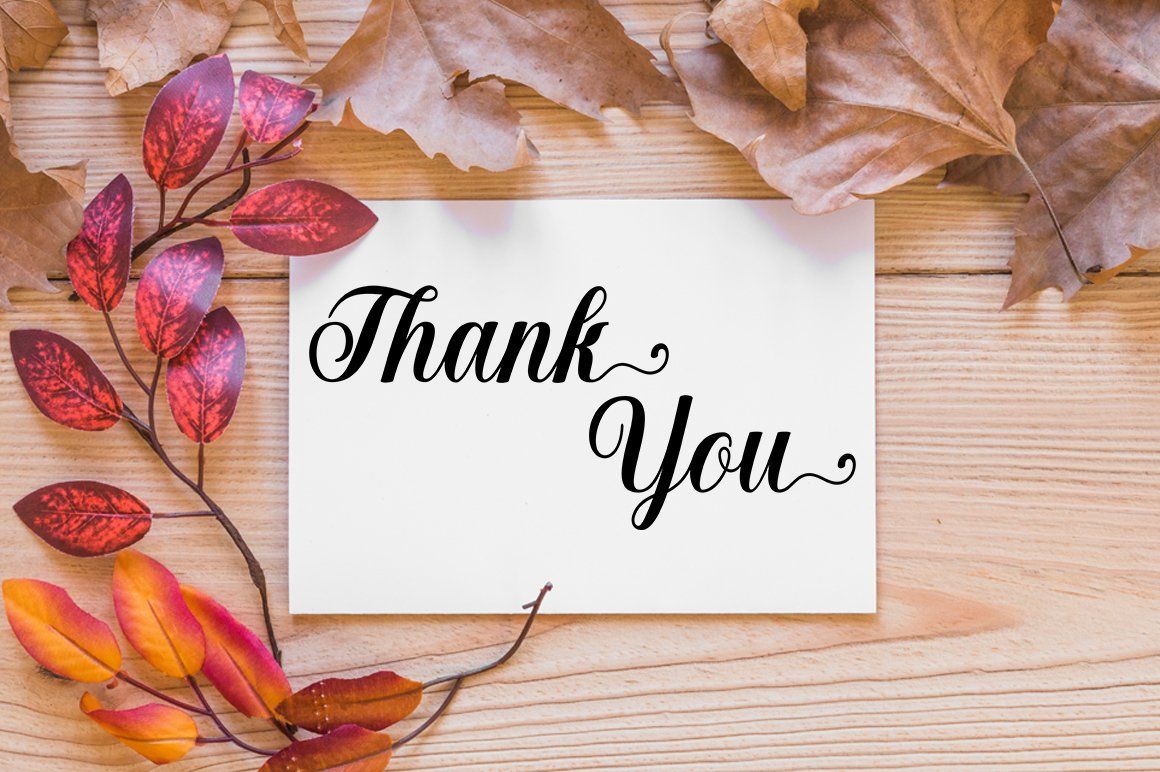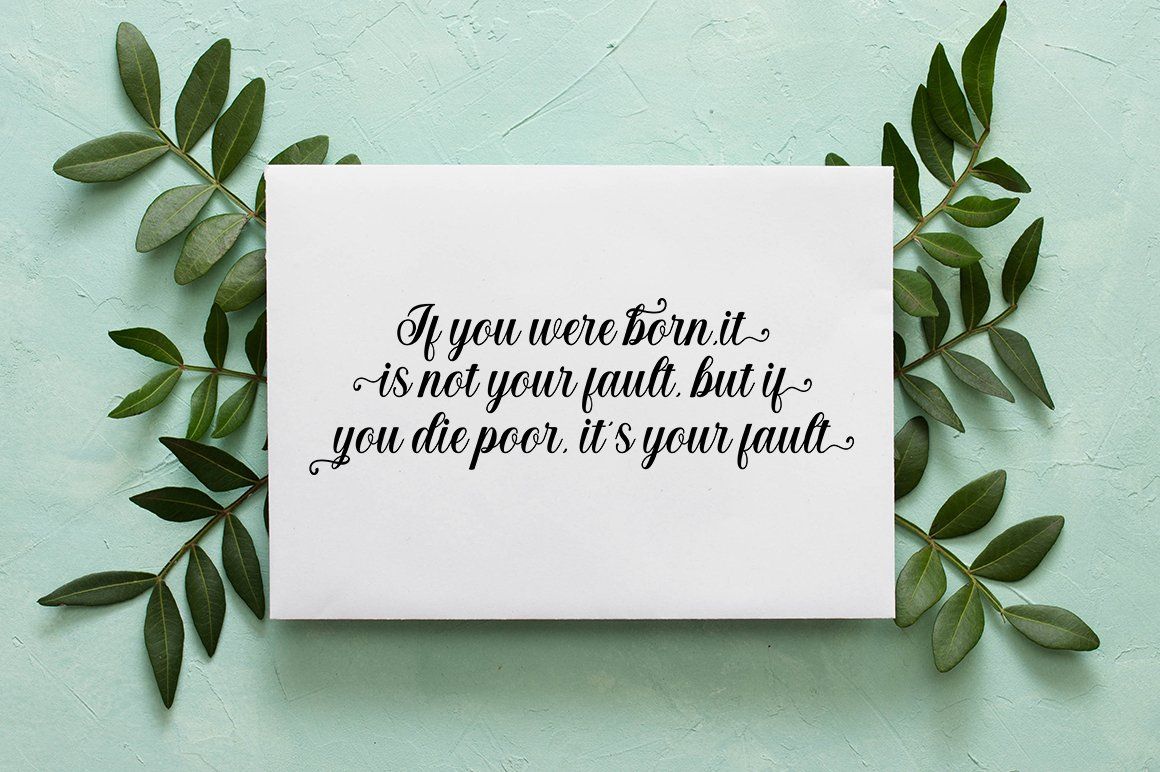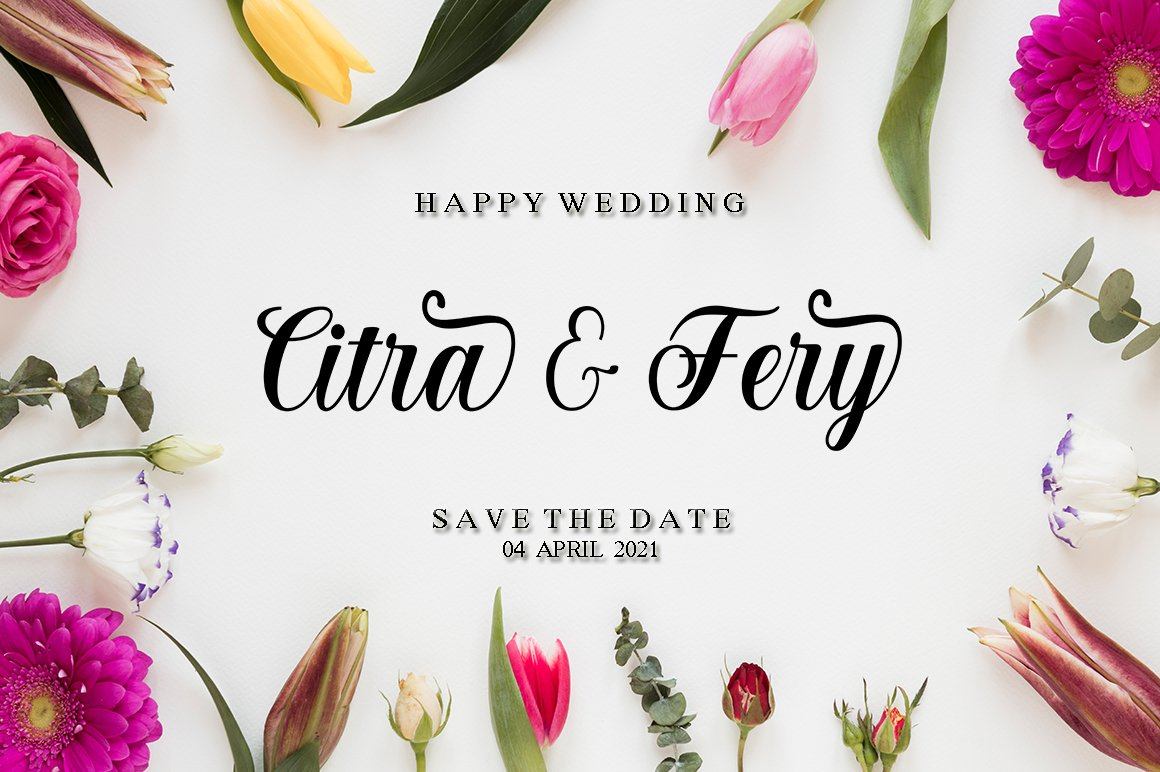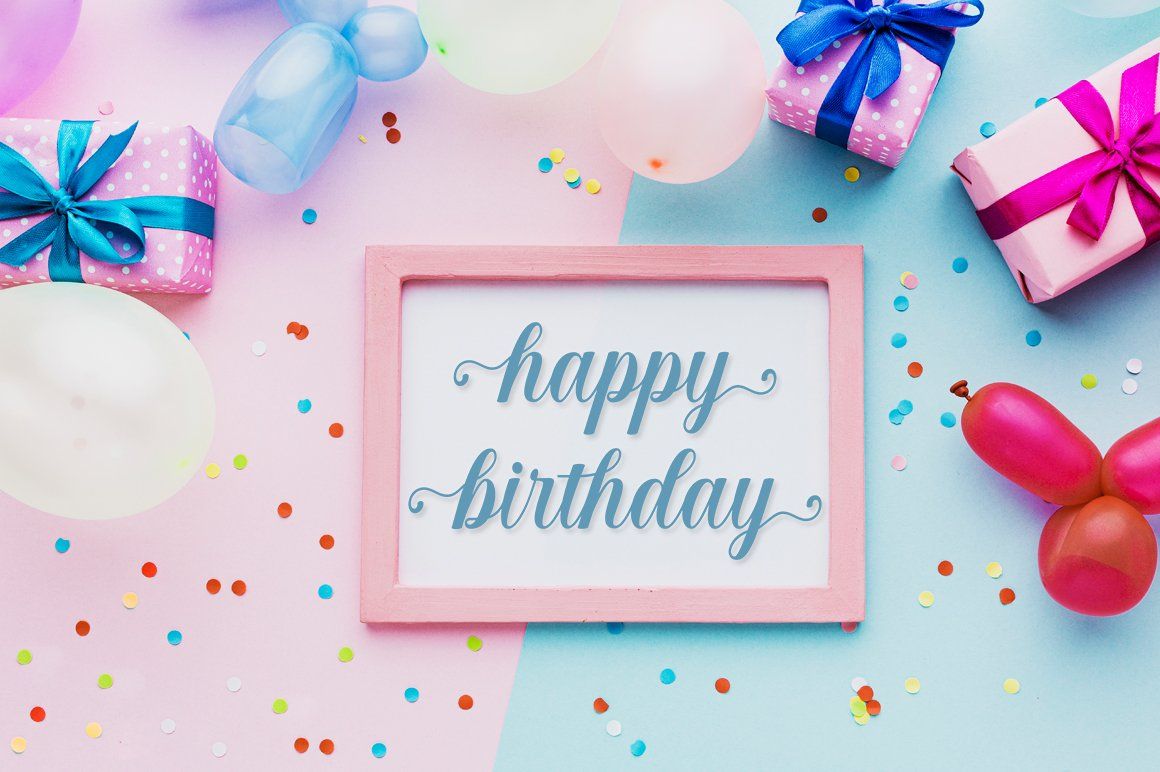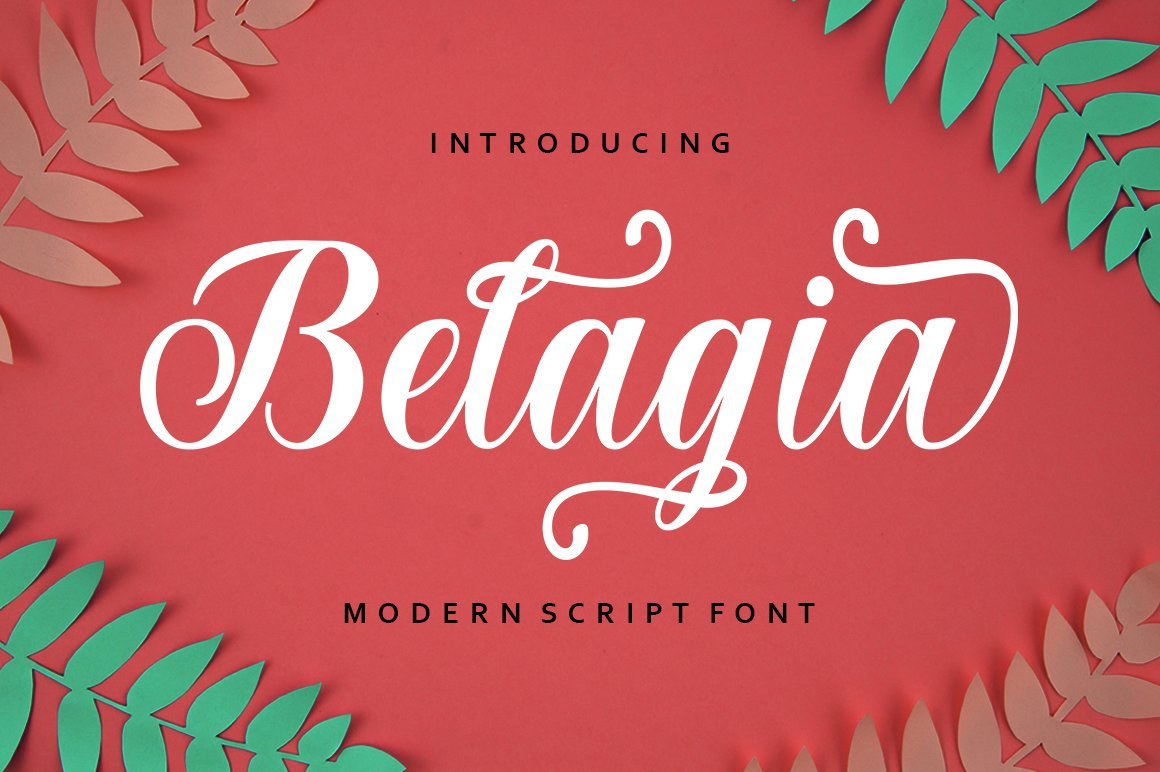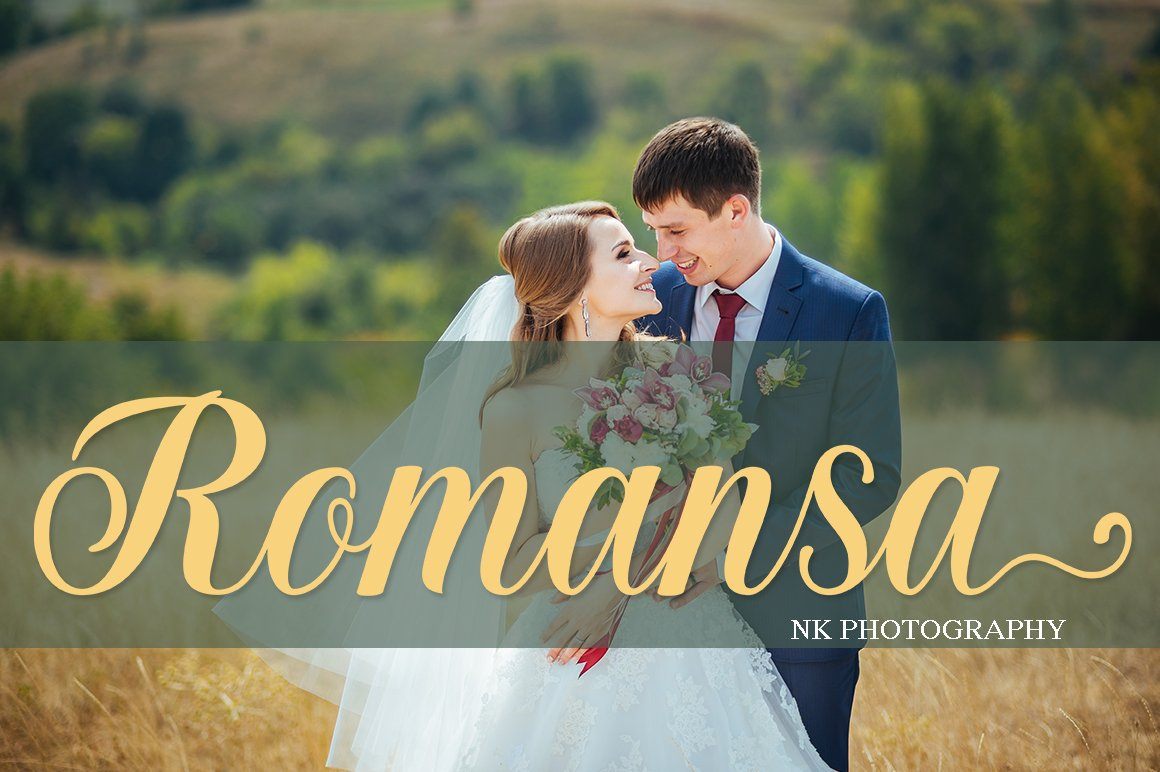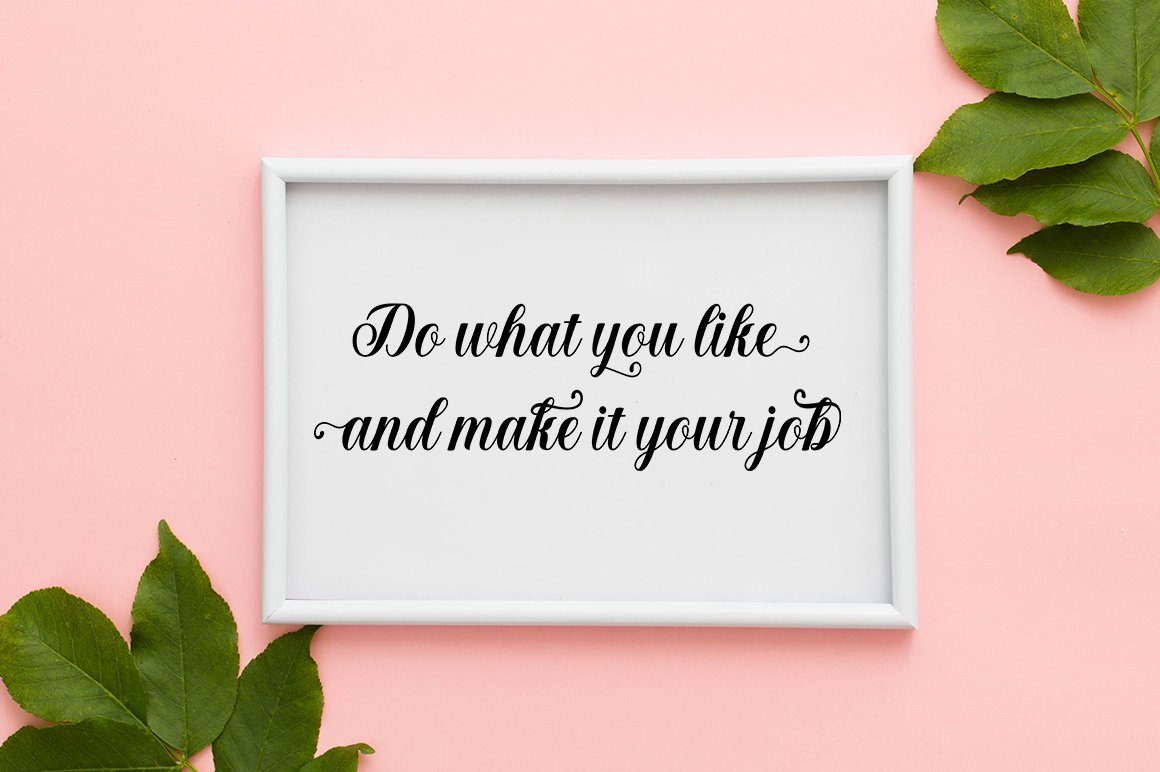
Belagia
About Belagia
Belagia Script is a beautiful script font with many alternative styles, this font looks natural, elegant and perfect for extraordinary projects. Belagia Script is suitable for various products such as invitations, product packaging, offers, product designs, crafters, labels, photography, watermarks, logos & branding. Everything can be accessed using software that supports Opentype, such as Adobe Indesign, Adobe CS Illustrator, Adobe Photoshop CC, and Corel Draw. You will get: Belagia OTF Script Belagia TTF Script Thank you 🙂